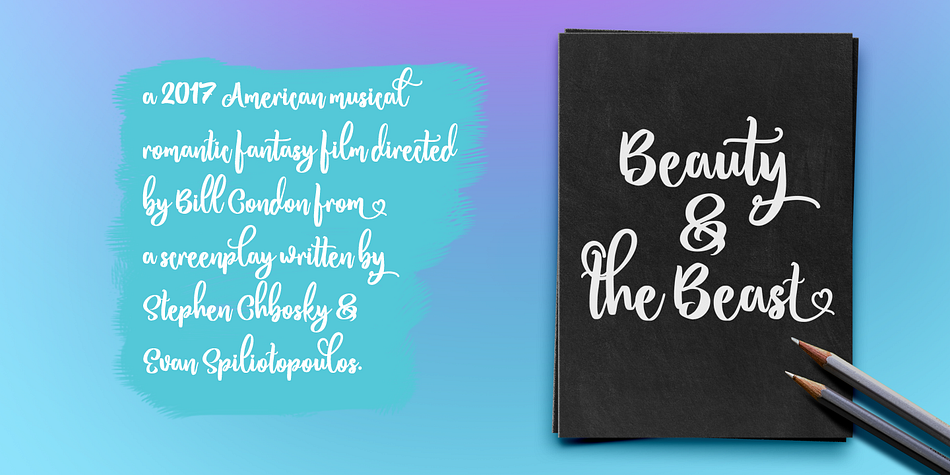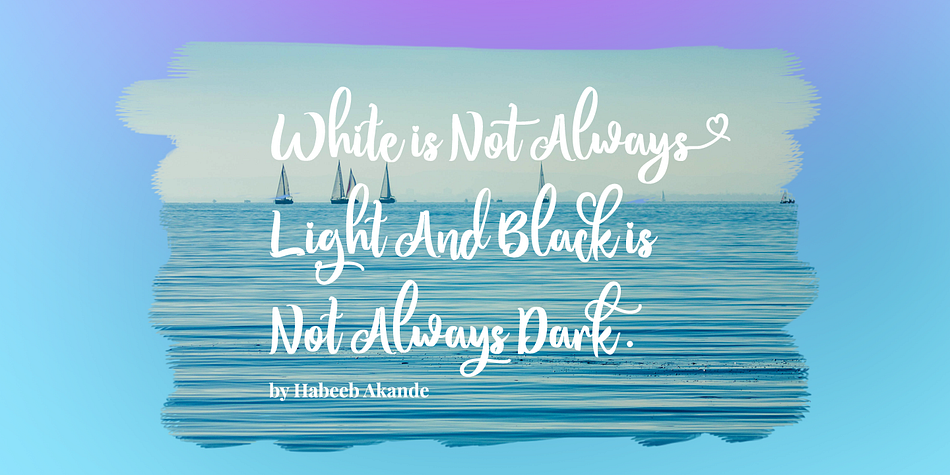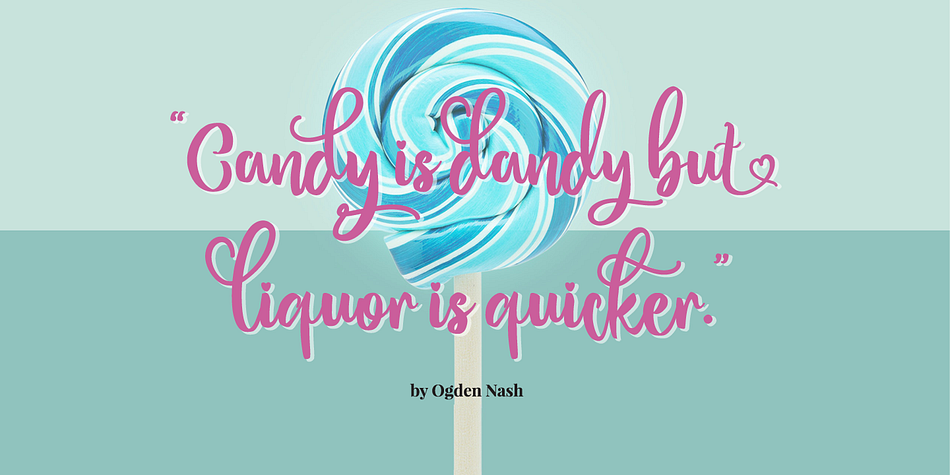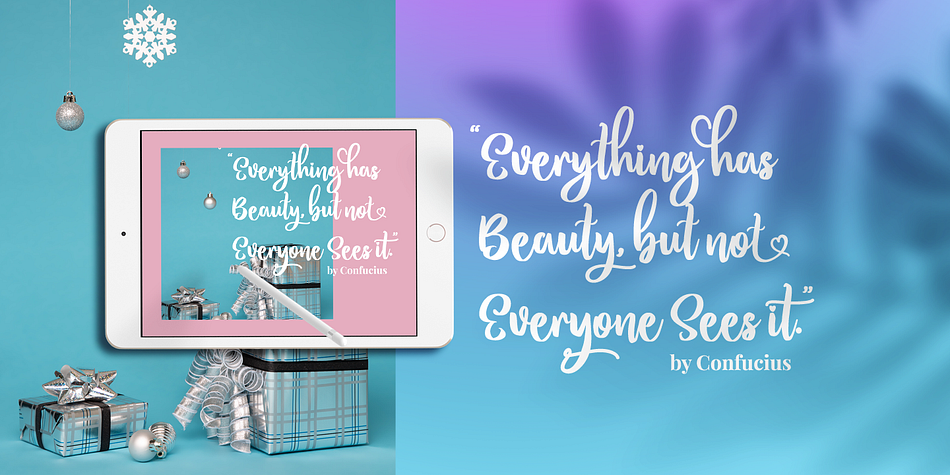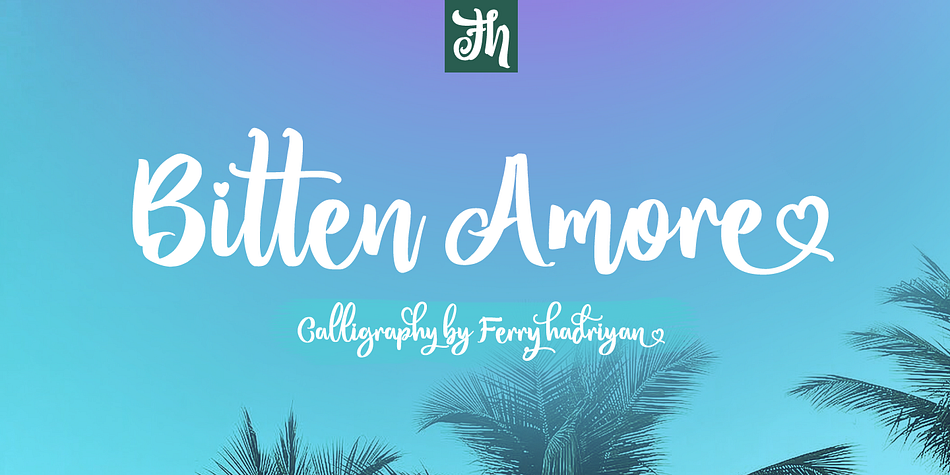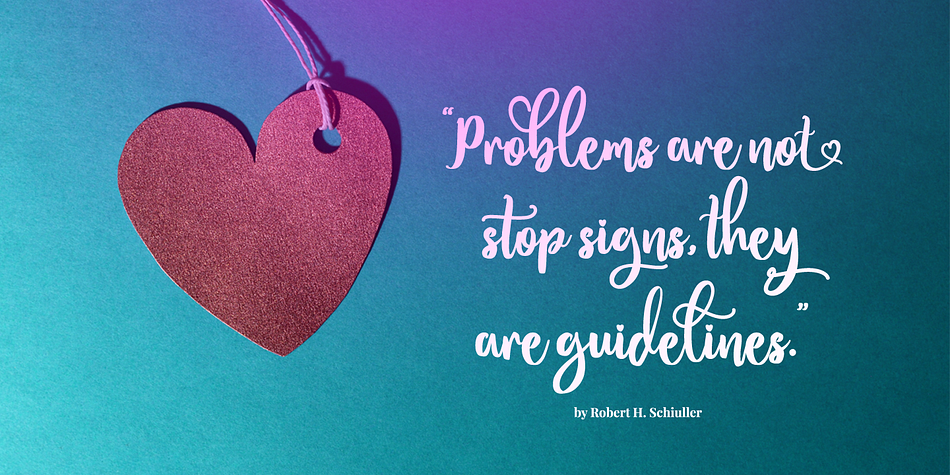
Designed by Ferry Hadriyan, Bitten Amore is a modern calligraphy and script font published by feydesign.
Bitten Amore - Script Font
FH Amore is Script Font with Handlettering Brush Style, with opentype feature include of the font. Suitable for design, element design, wedding, event, t-shirt, logo, badges, sticker, and awesome work, etc…
Feauture Of The Font:
- Open Type Features Fonts
- Unique style fonts